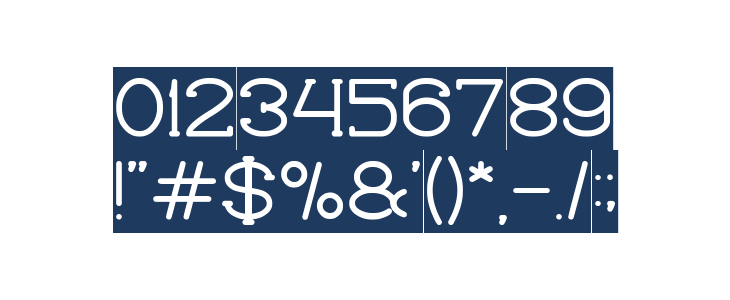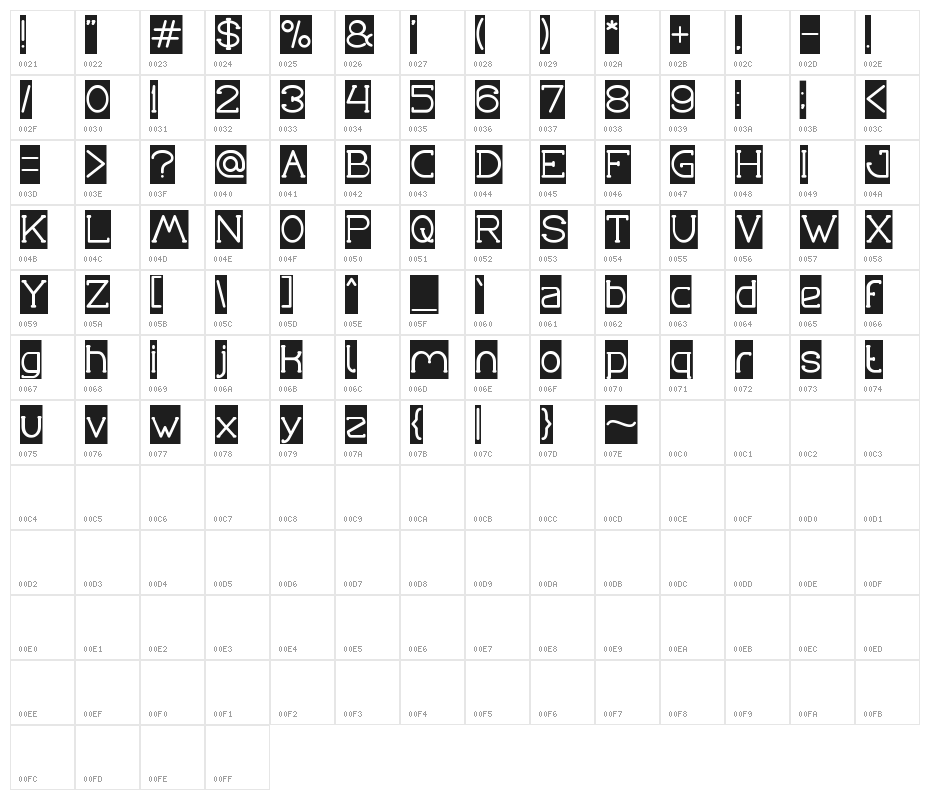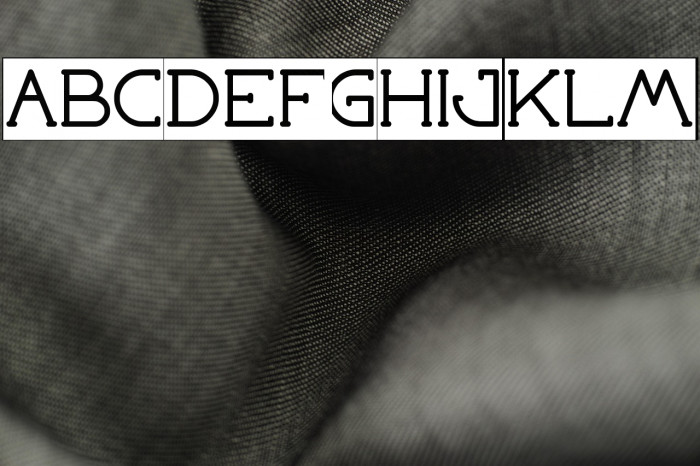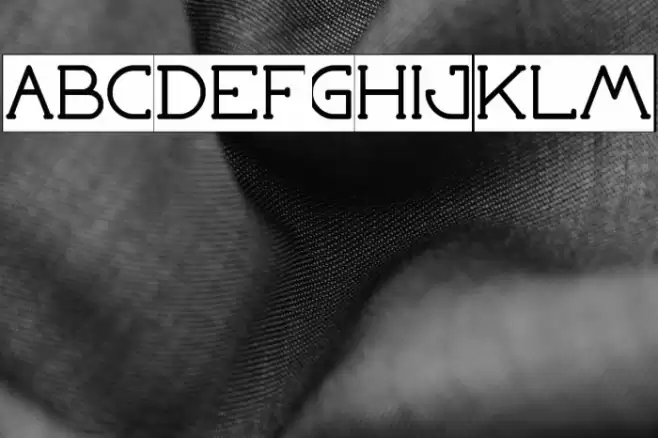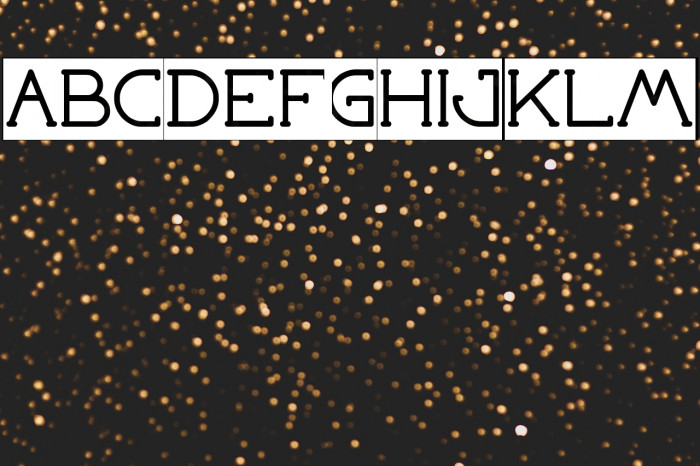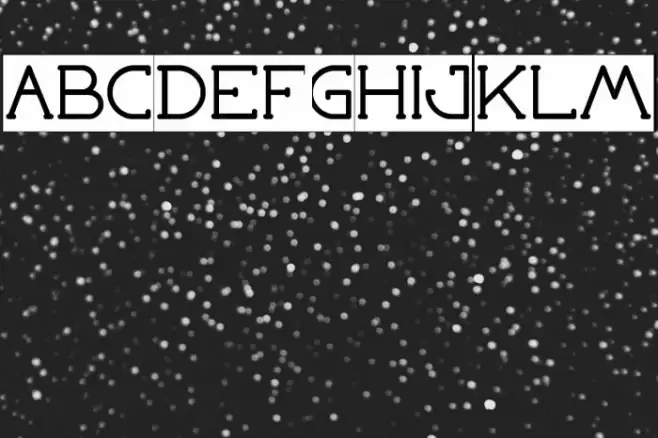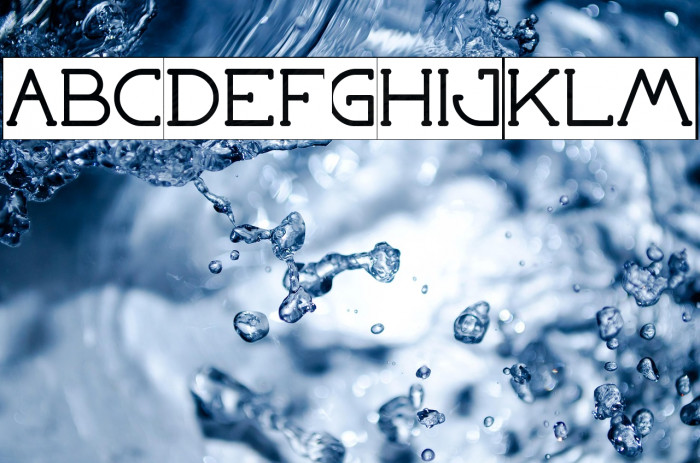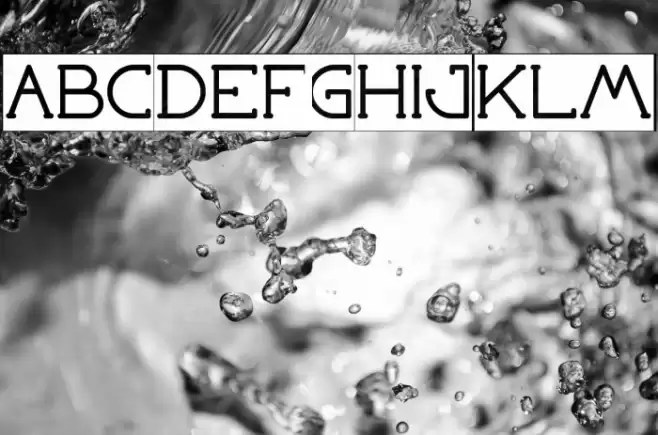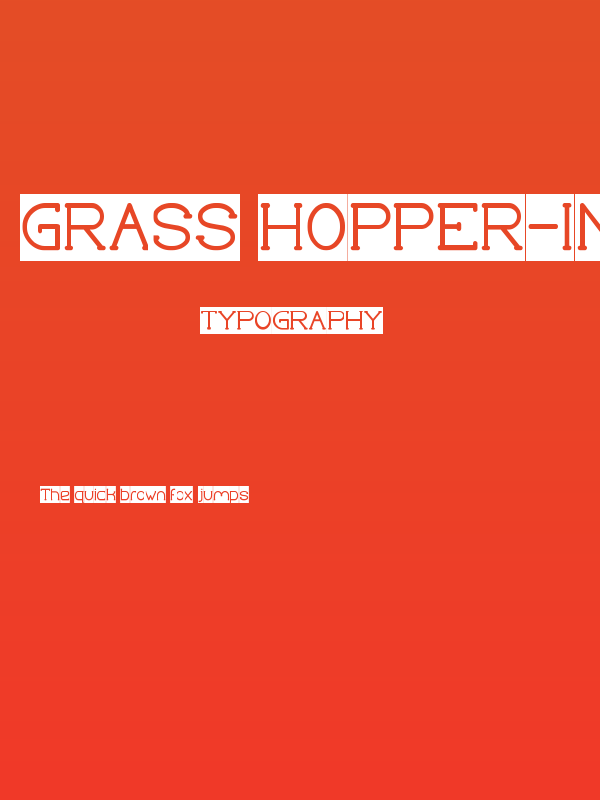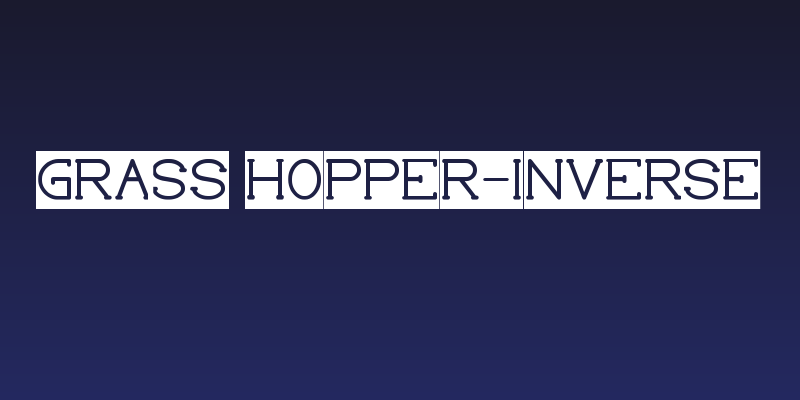
Grass Hopper-Inverse Font
Grass Hopper-Inverse Description
This font features a unique and modern design with a playful twist. The characters are constructed with a combination of straight lines and rounded edges, giving it a distinctive look. The uppercase letters are bold and prominent, while the lowercase letters maintain a consistent style with a slightly softer appearance. The numbers and special characters follow the same design principles, ensuring a cohesive look across all elements. The font's style is both decorative and functional, making it suitable for a variety of creative projects.
Proposed ProjectsIdeal for branding, posters, and creative design projects that require a unique and eye-catching typeface.